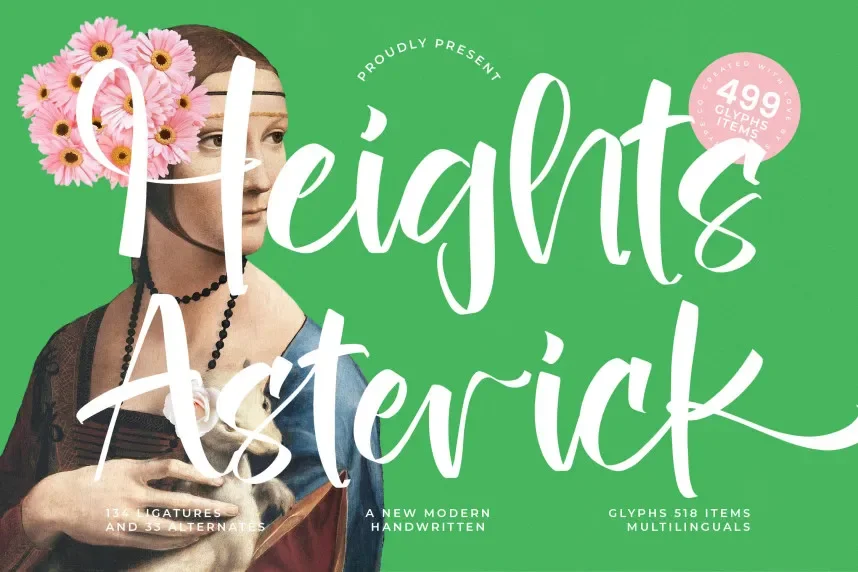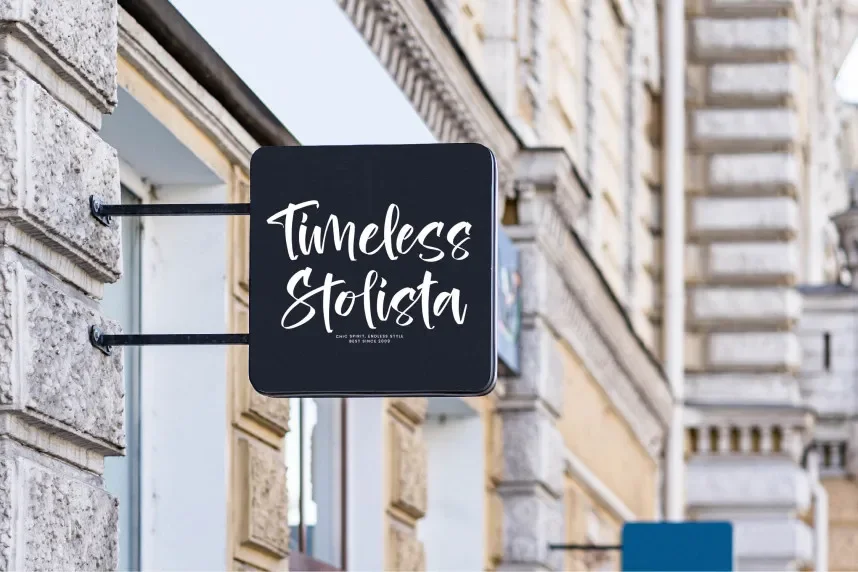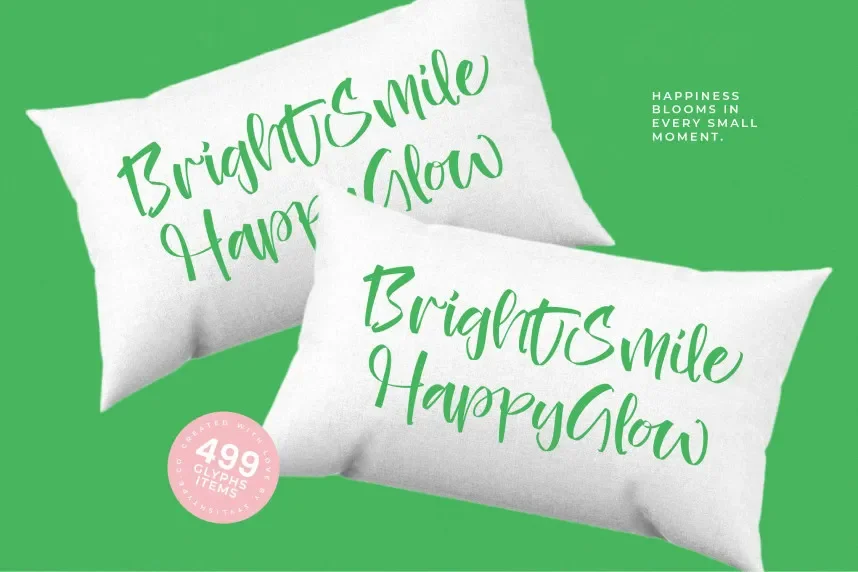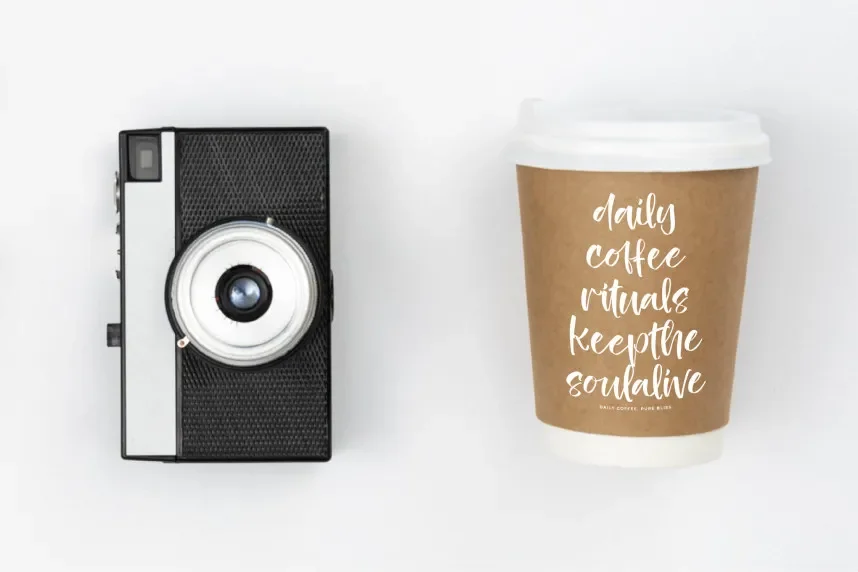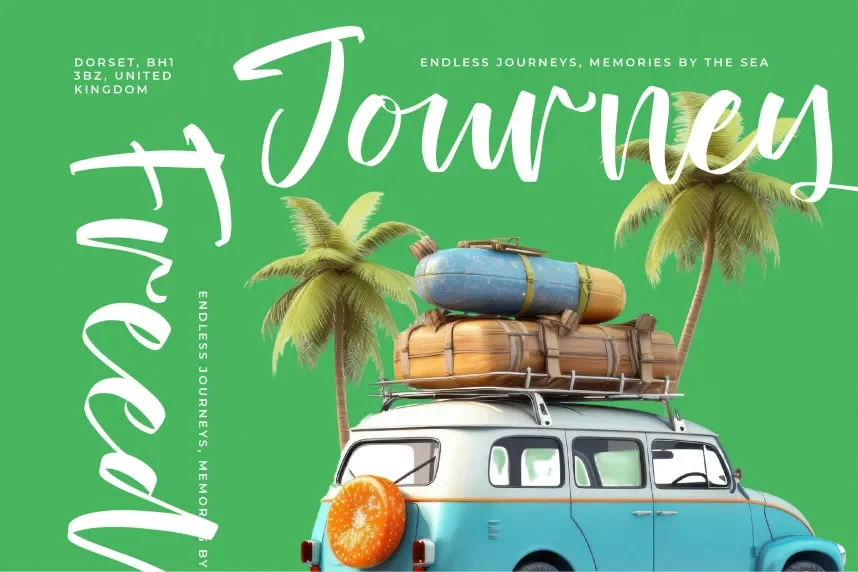
Heights Asterick Font is a modern handwritten typeface designed for casual clarity. Many handwritten fonts look messy at small sizes. Heights Asterick avoids this with controlled strokes and consistent spacing.
This font belongs to the handwritten script category. Its letterforms feature rounded curves, smooth connections, and even rhythm. The font remains readable across digital platforms.
Heights Asterick works well for branding, social media captions, greeting cards, invitations, and personal projects. Designers often pair it with a clean sans-serif for longer text.